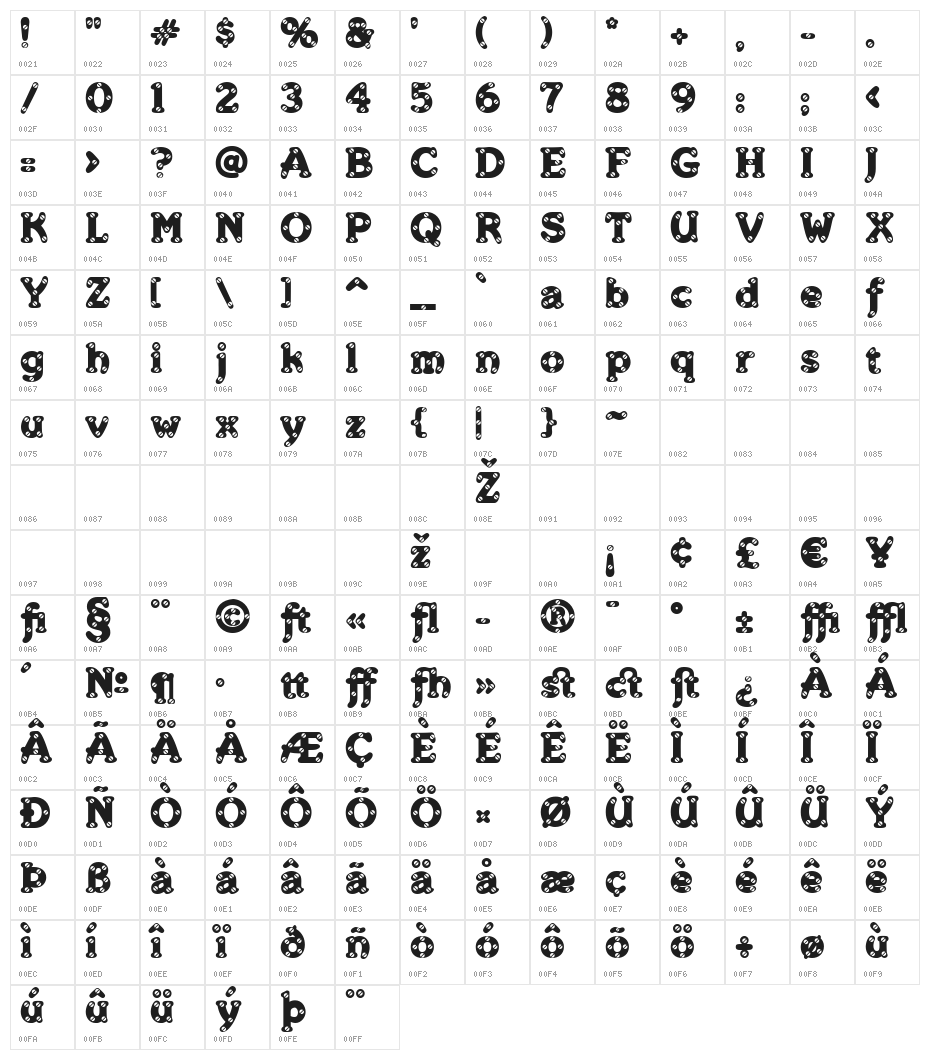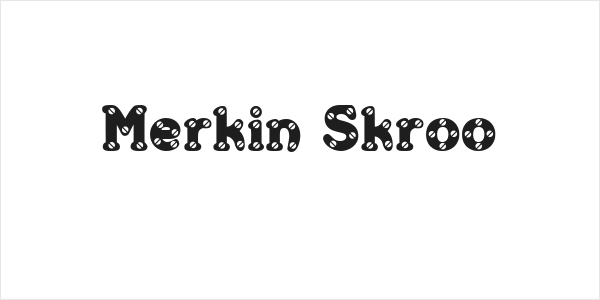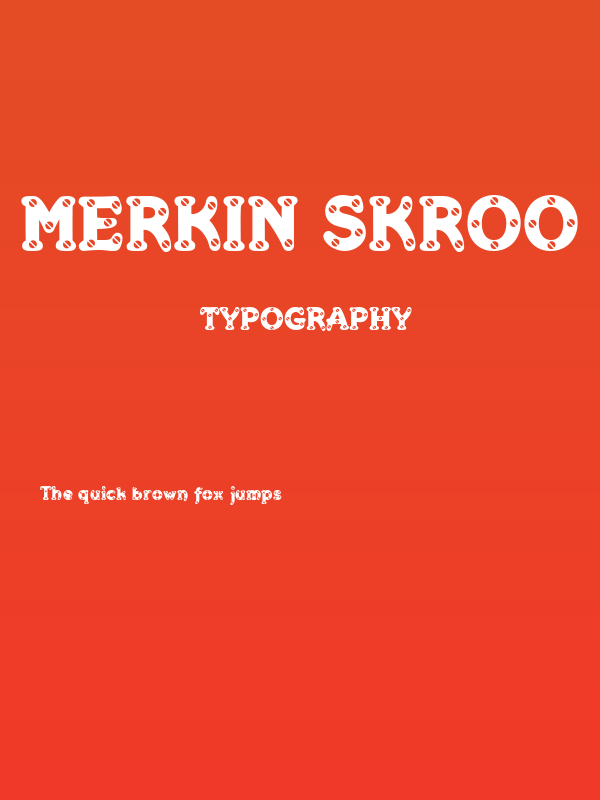
Merkin Skroo Font
Merkin Skroo Description
This font features a playful and bold design with a unique polka dot pattern embedded within each character. The letters are rounded and thick, giving them a strong presence while maintaining a whimsical and fun aesthetic. The consistent circular cutouts add a decorative element that makes the font stand out, making it ideal for creative and eye-catching designs. The uppercase and lowercase letters maintain a uniform style, and the numbers and special characters follow the same playful theme, ensuring cohesion across all text. This font is perfect for projects that require a touch of creativity and boldness.
Overall StylePlayful, Decorative
Proposed ProjectsIdeal for children's books, playful branding, party invitations, and creative posters.